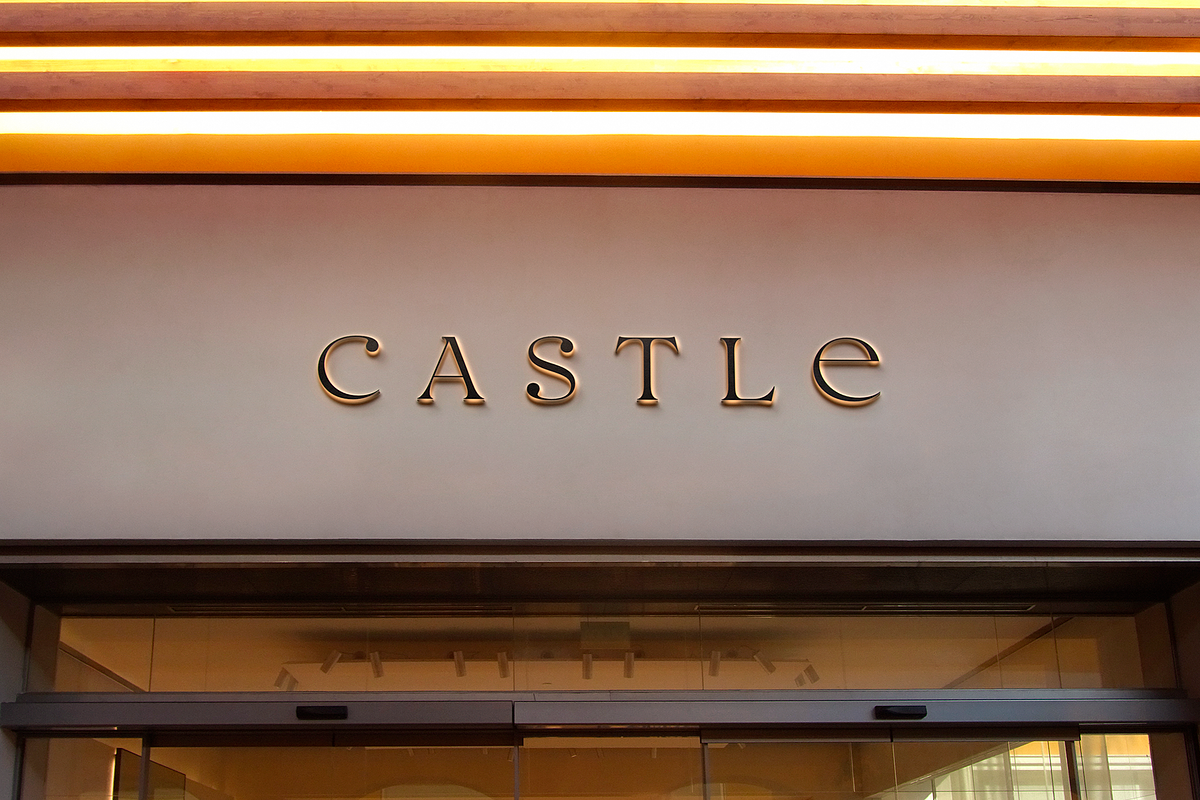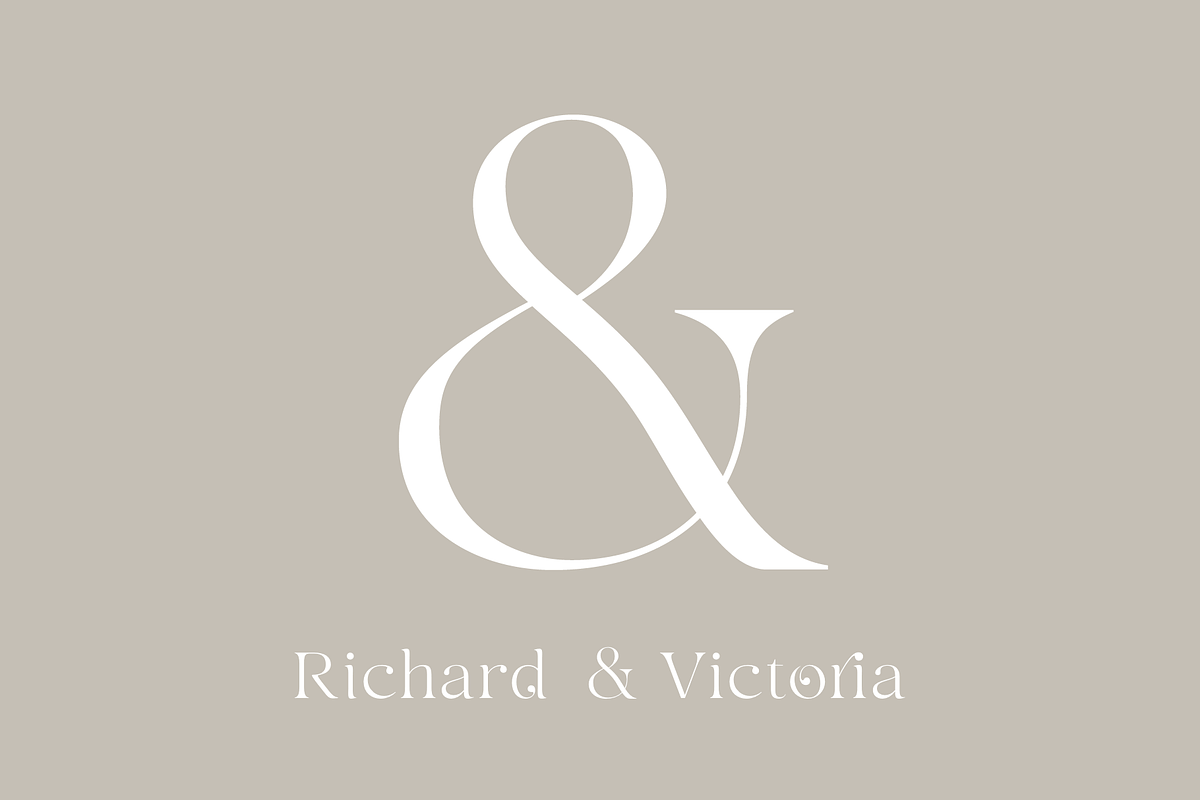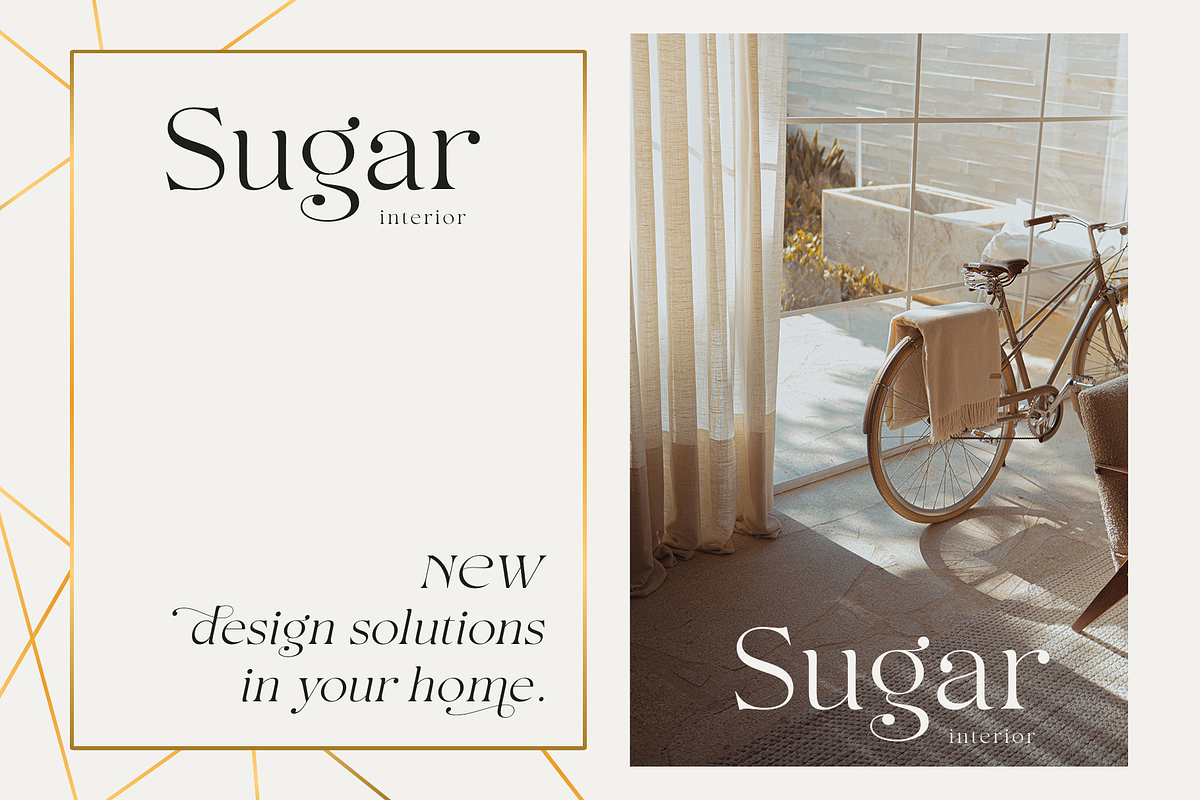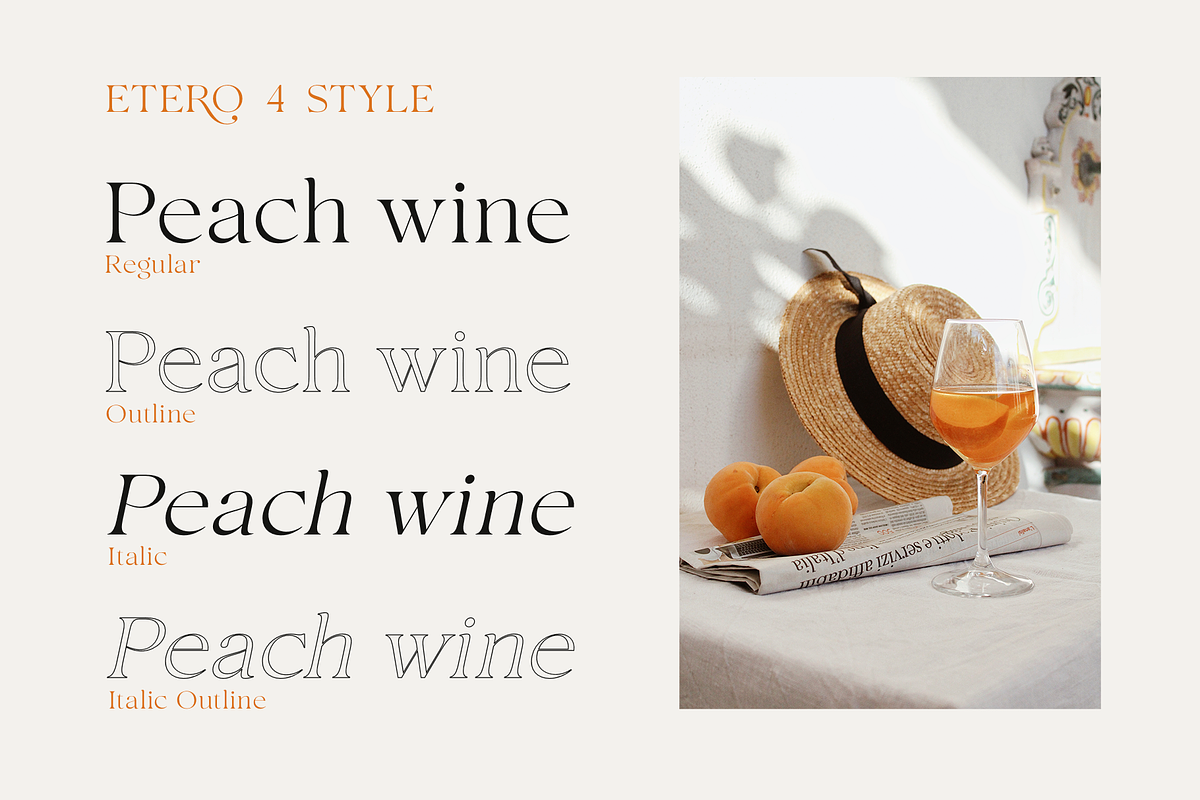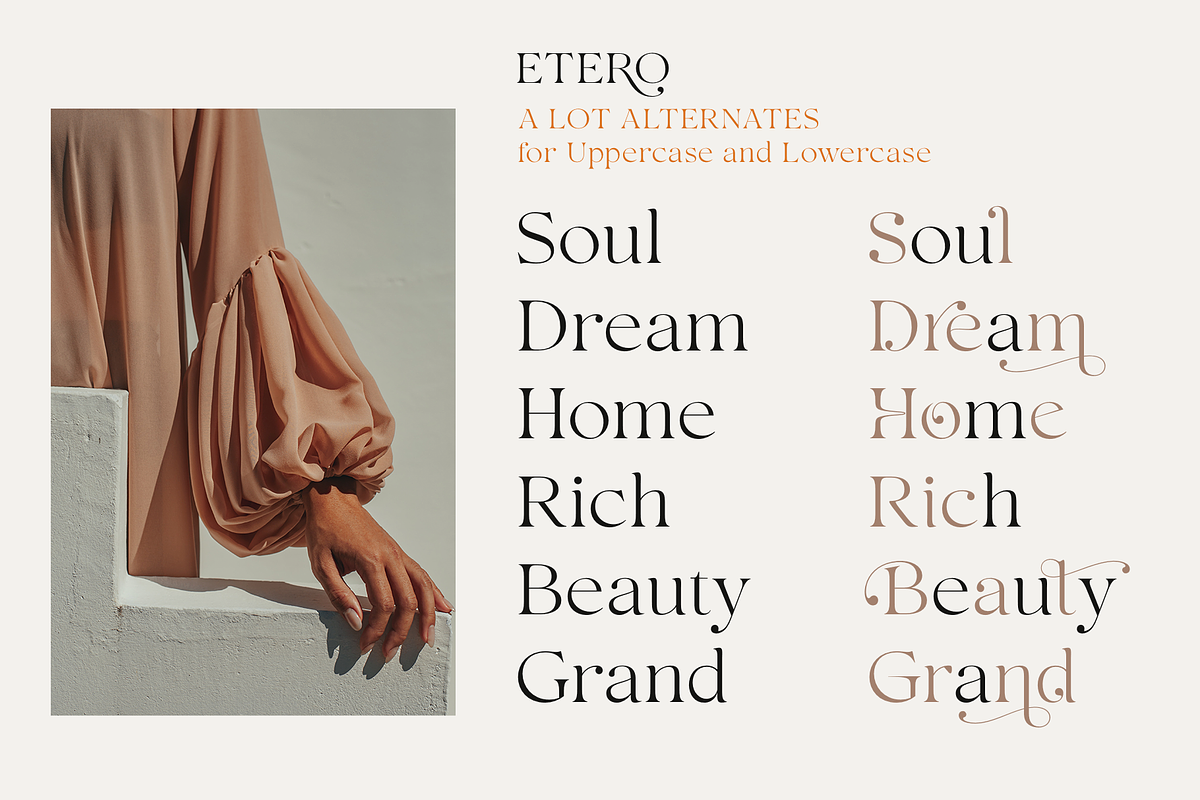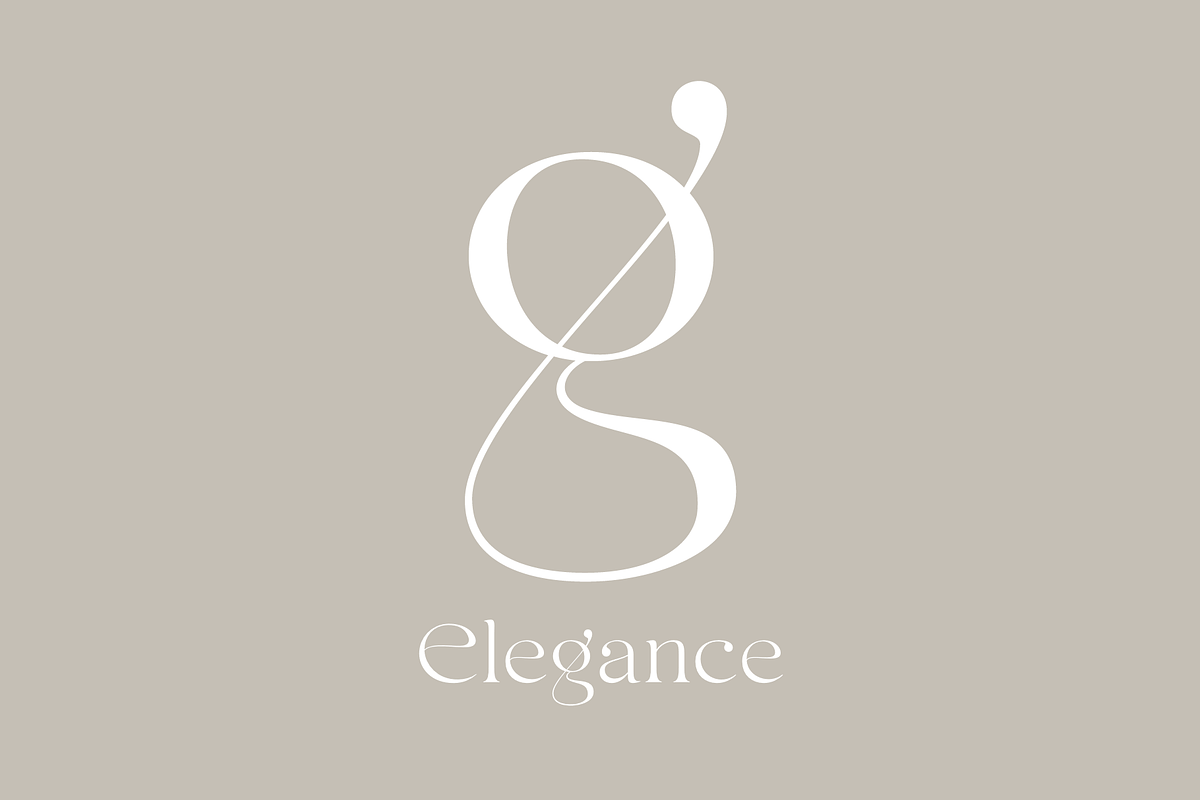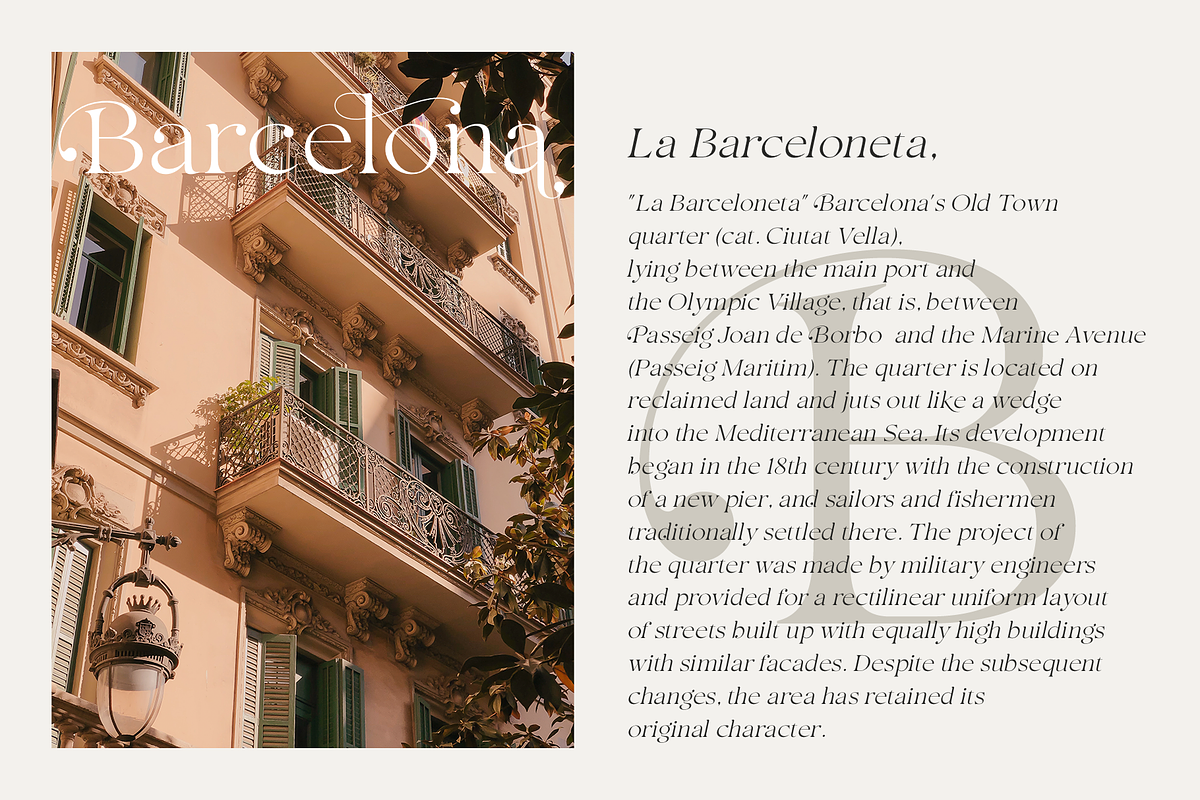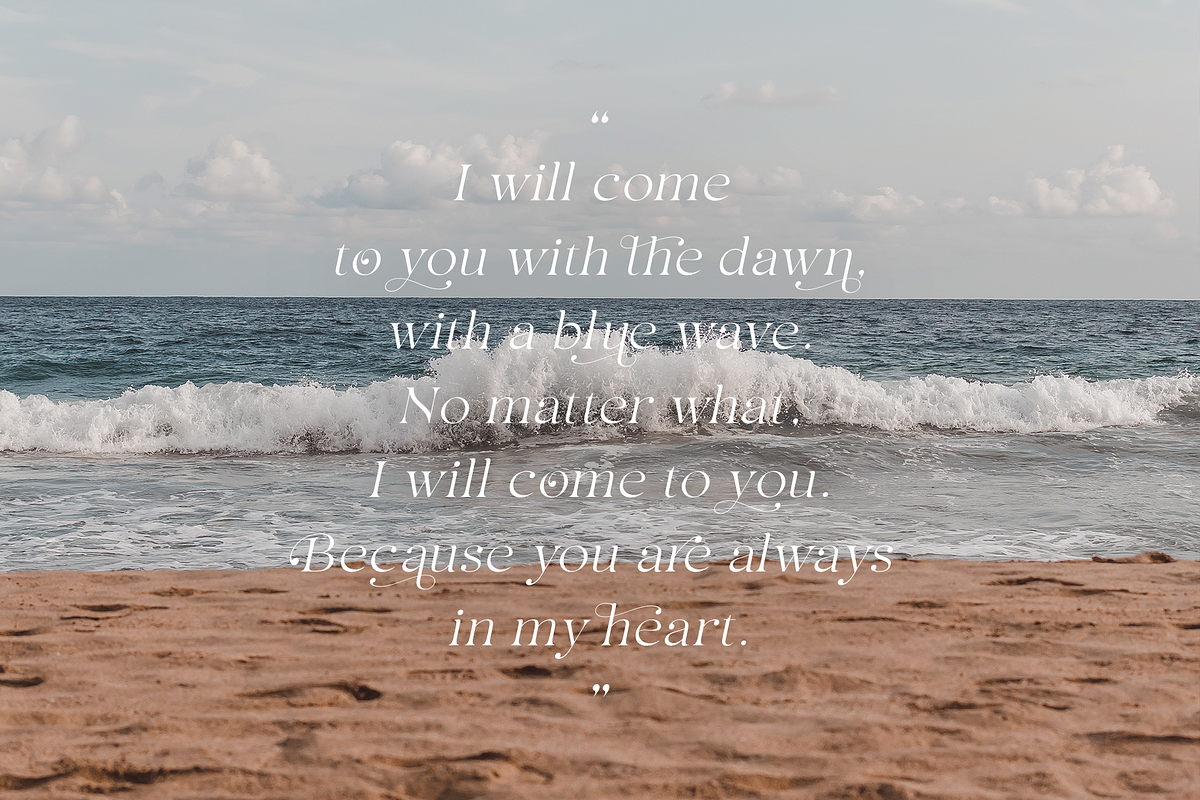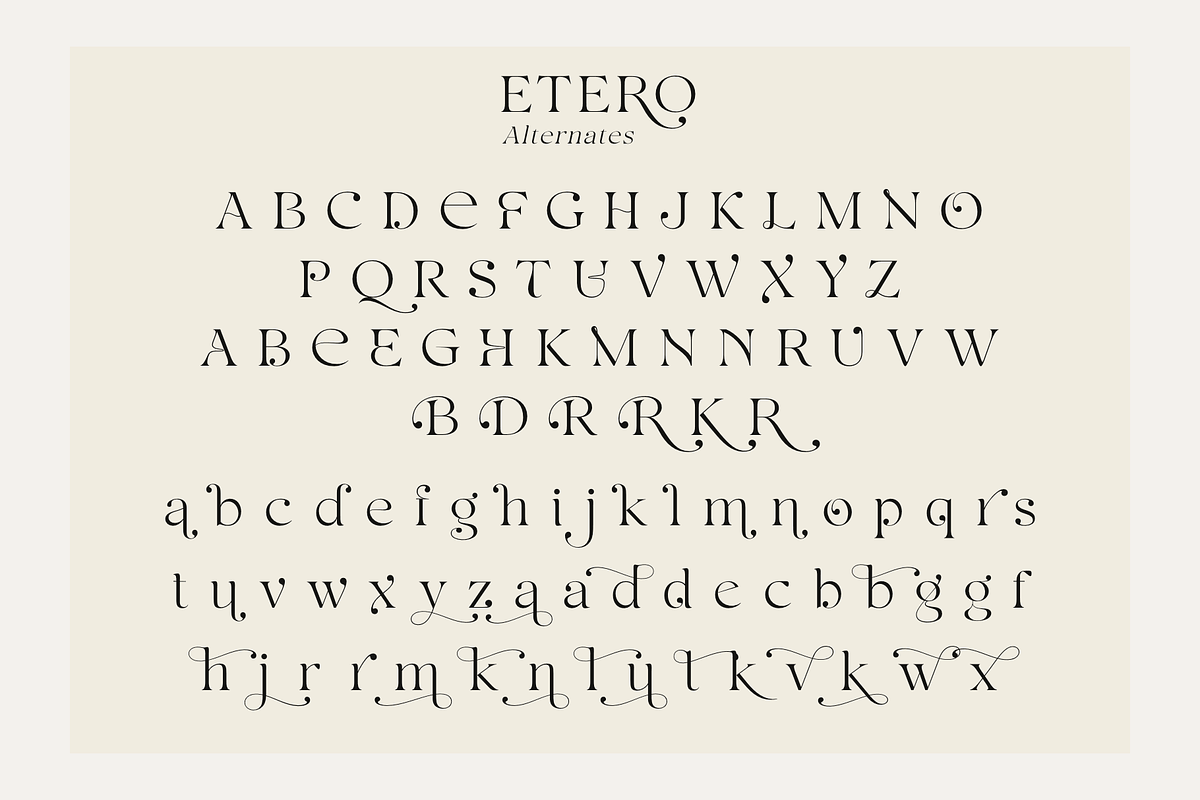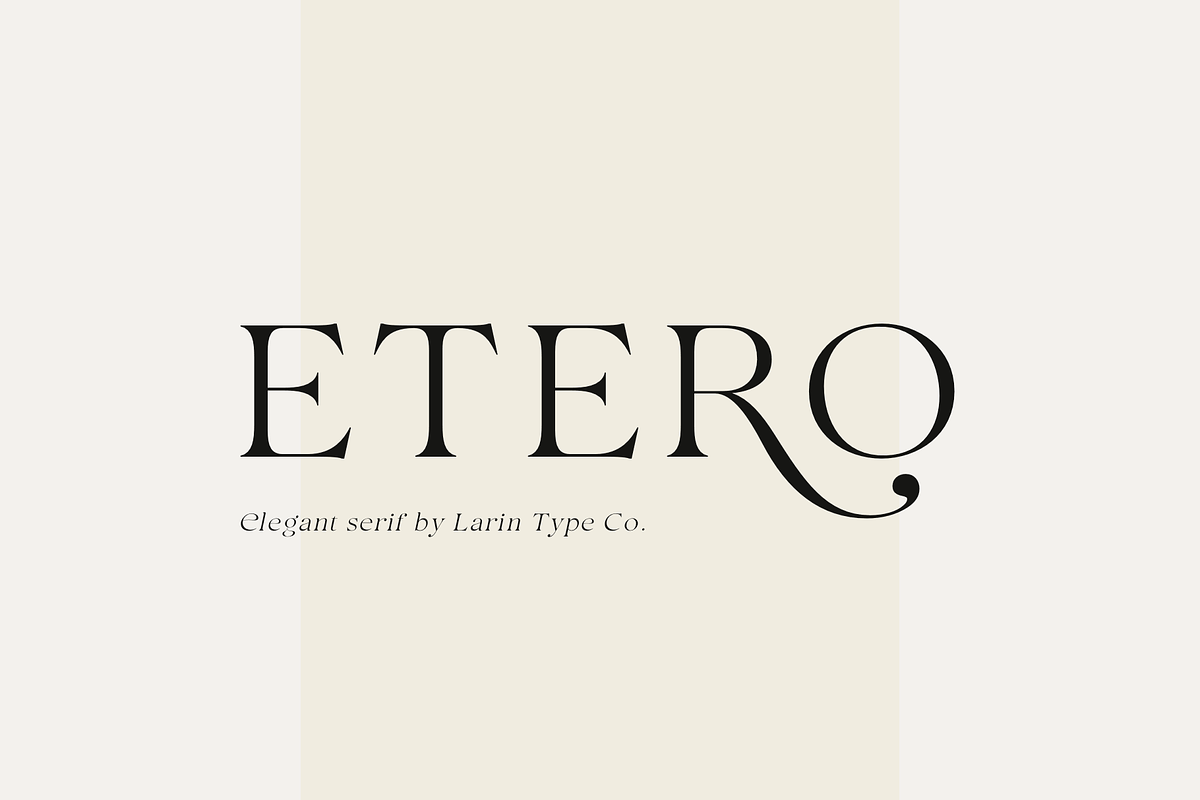
Etero
Etero is a modern and elegant serif font that includes four typefaces: regular, outline, italic, and outline italic.
This font has a light weight and looks amazing in logos, branding, arranging wedding invitations, business cards, packaging, titles and much more and also works perfectly with text, it is very readable and recognizable. This font includes alternates for Uppercase and Lowercase, with them you can make your project more elegant and unique and the slanted style will add dynamics to your design. This font is easy to use has OpenType features.
Following international symbols support: ÀÁÂÃÄÅĄÇĆÈÉÊËĘÌÍÎÏÐÑŃŁÒÓÔÕÖØÙÚÛÜŚŠŸÝŹŻŽßàáâãäåçèéêëìíîïðñòóôõöøùúûüýÿąćęłńśšźżž
Full alphabet with Uppercase and Lowercase A-z
Numbers, fractions
Punctuation and symbols
Alternates for Uppercase
Alternates for Lowercase, also Ampersand